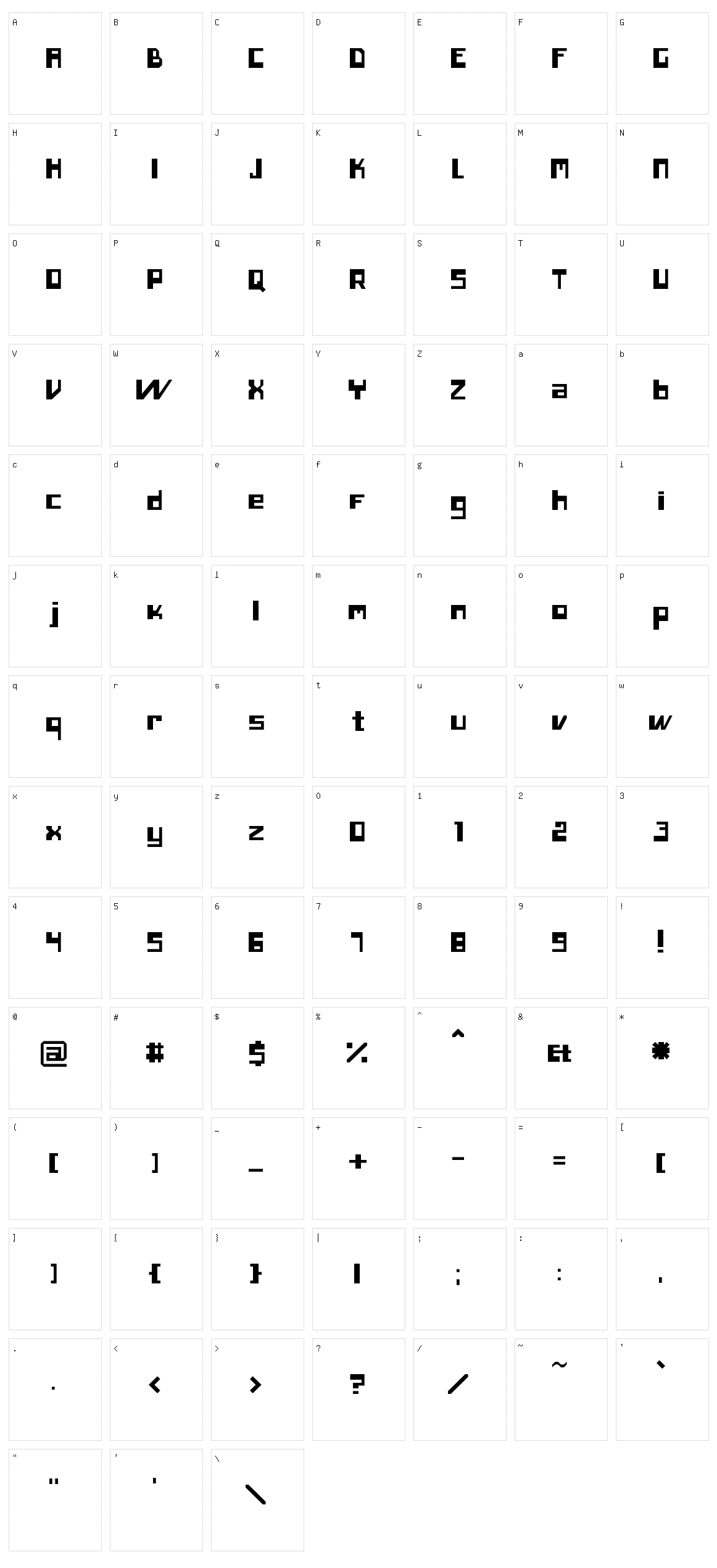
Inero font
Made by Staffan Vilcans.
Inspired by the Eniro logotype. I know that the font lacks some characters. If you want to add them, please do, but send me the updated font so I can include it in the next release. You will ofcourse be credited as a co-creator.